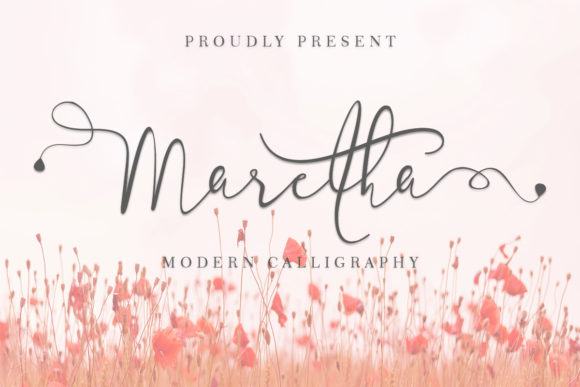
Indulge in the enchanting allure of Maretha, a script font crafted with meticulous care to evoke the essence of handwritten beauty. Its authentic strokes and graceful curves will captivate your senses, inviting you to create masterpieces that exude elegance and charm.
Maretha's versatility extends beyond its breathtaking aesthetic, offering a symphony of customization options. Effortlessly access a treasure trove of glyphs and swashes, adding a touch of playfulness and sophistication to your designs. Unleash your creativity with a multitude of alternate glyphs and ligatures, transforming ordinary words into works of art.
Picture the grandeur of wedding invitations adorned with Maretha's ethereal script, each letter a testament to the love and joy of your special day. Enchant your stationary art with its delicate strokes, leaving a lasting impression on every piece you create. Captivate your audience on social media with eye-catching posts that shimmer with Maretha's allure. Extend warmth and cheer with adorable greeting cards, spreading happiness with every handwritten note.
Maretha is more than just a font; it's an invitation to embark on a creative journey where your imagination takes flight. Let its beauty inspire you to craft designs that leave an unforgettable mark on the world. Embrace the power of Maretha and elevate your creations to new heights of enchantment.